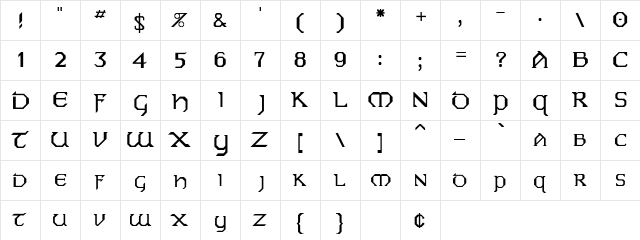
DecatureSCapsSSK Regular Font Preview
DecatureSCapsSSK Regular
DecatureSCapsSSK Regular Font Details
Design Context for DecatureSCapsSSK Typeface
DecatureSCapsSSK is a composed and adaptable typeface that performs quietly and consistently across a wide range of design contexts.